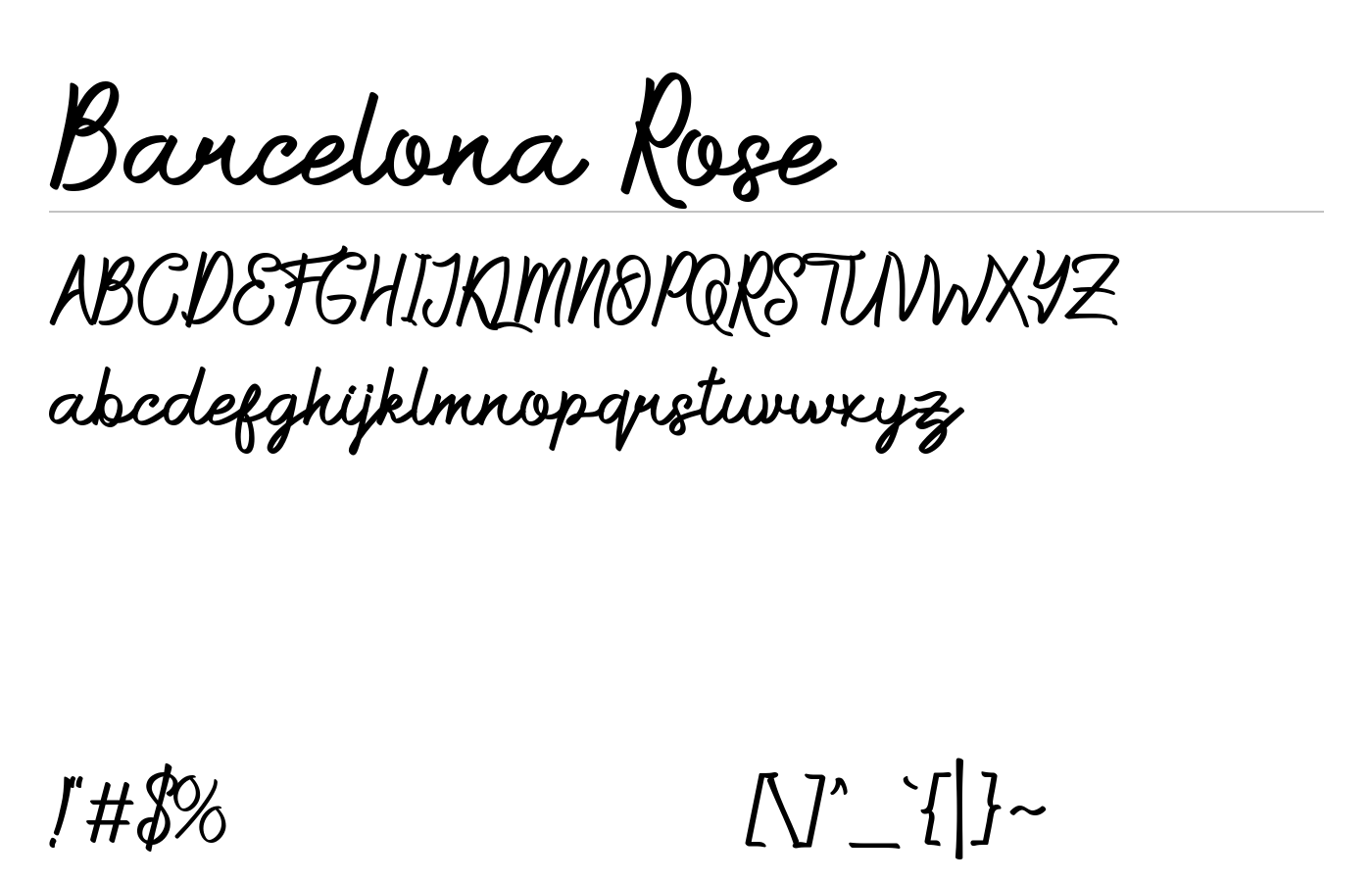
Barcelona Rose is a lively and elegant handwritten script font with a charming, casual feel. Its fluid strokes and slightly condensed letterforms create a warm and approachable personality, making it perfect for branding, invitations, and creative projects that want to convey friendliness and style. This font stands out for its unique, playful character shapes that add a personal and artistic touch without sacrificing readability.
Barcelona Rose Font
About Barcelona Rose Font